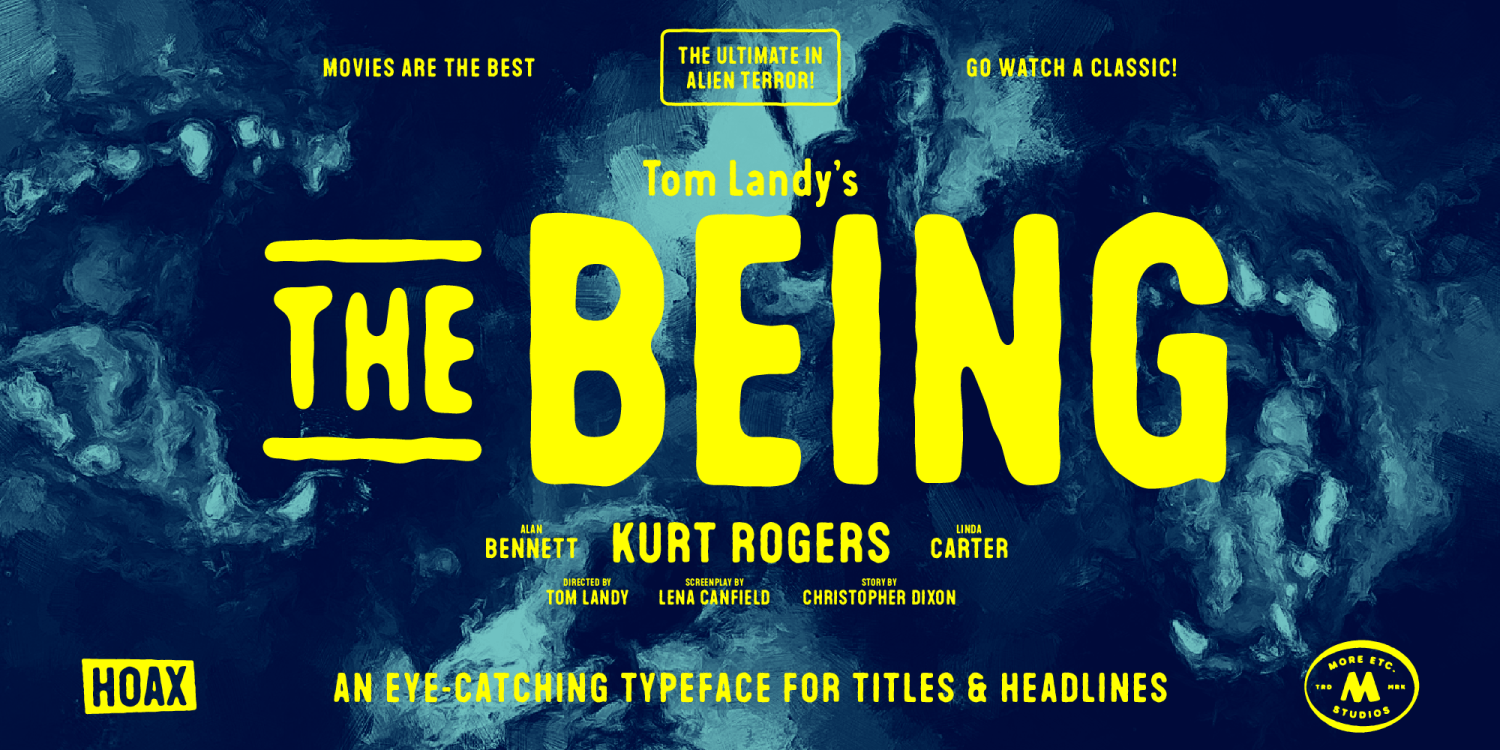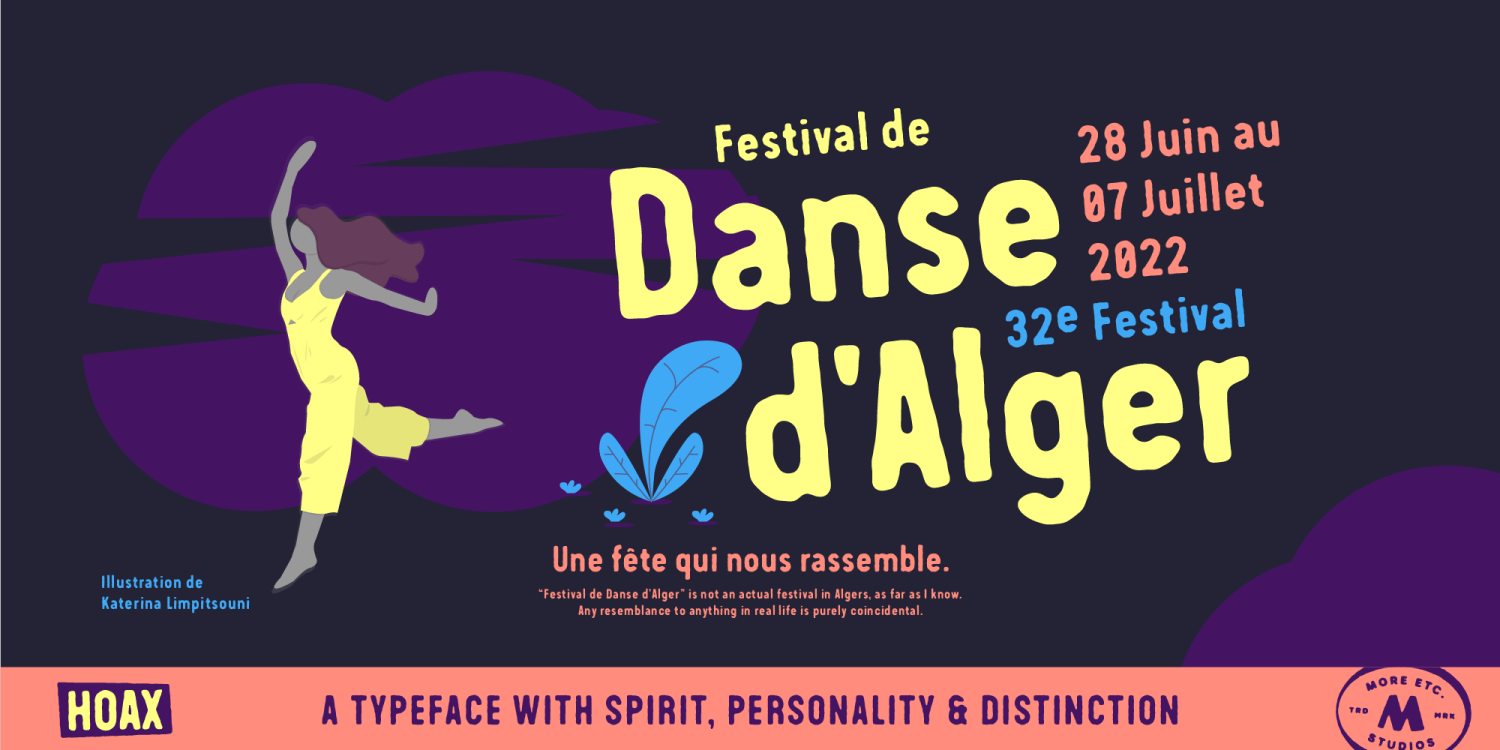
About Hoax
Introducing Hoax – a pre-worn sans serif with spirit, personality and distinction. This bold and semi-condensed sans serif is inspired by old copy machines and vintage prints. It is lively and eye-catching, ideal for where and when you want to make…